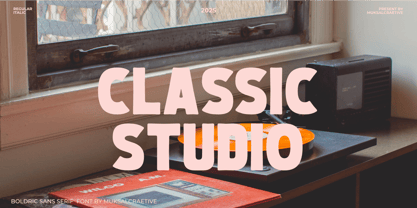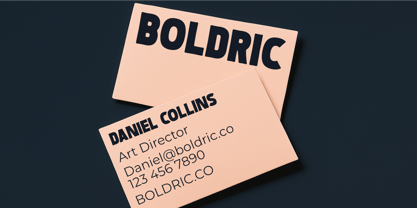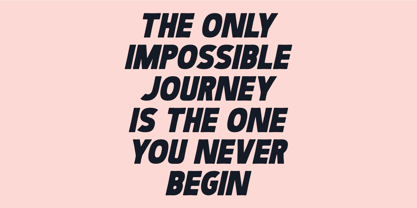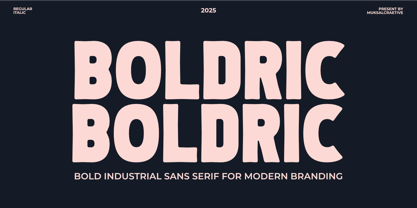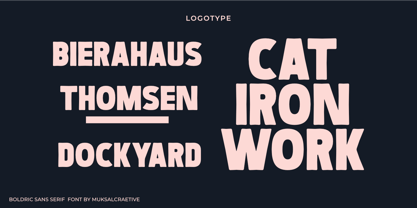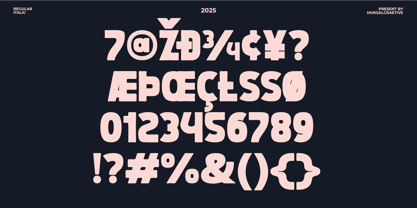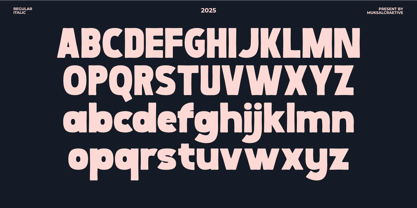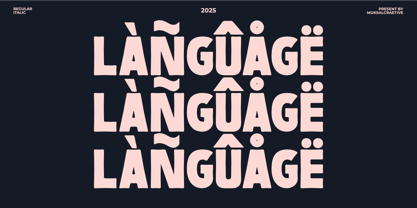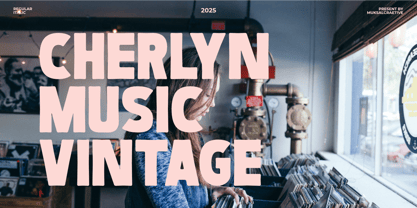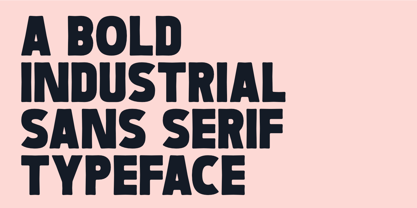
Boldric
by Muksal Creatives
The Boldric Font Family was designed by Muksalmina and published by Muksal Creatives. Boldric contains 2 styles and family package options. More about this family
Boldric is a bold industrial sans serif designed to deliver strength, clarity, and a modern edge. Inspired by vintage industrial signage and retro poster typography, Boldric combines sturdy letterforms with a contemporary feel—making it the perfect choice for impactful designs.
From logos, branding, packaging, signage, apparel, to editorial layouts and posters, Boldric stands out with its clean yet characterful style. It’s versatile enough for both digital use and print projects, ensuring your message is always bold and memorable.